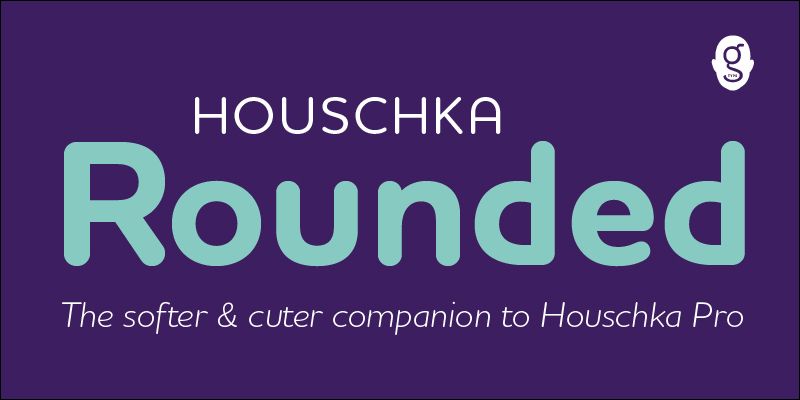
Houschka Rounded
rounded
The softer and cuter companion to Houschka Pro with even rounder curves and terminals. Equally versatile and feature rich as her big sister, this ultra friendly typeface makes a definite splash.